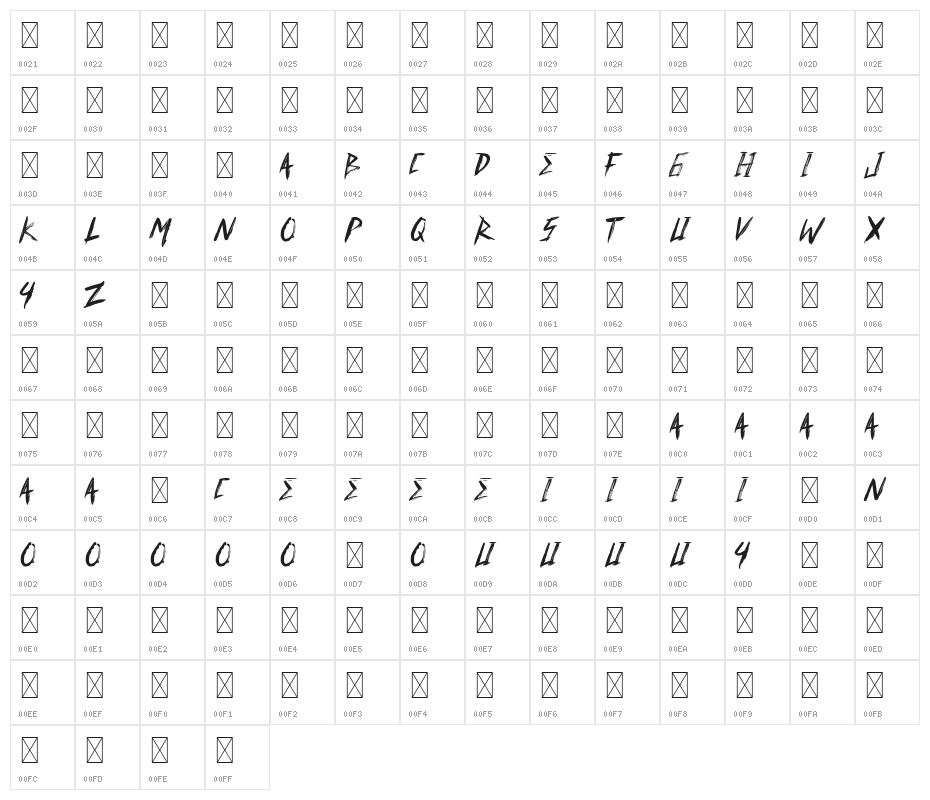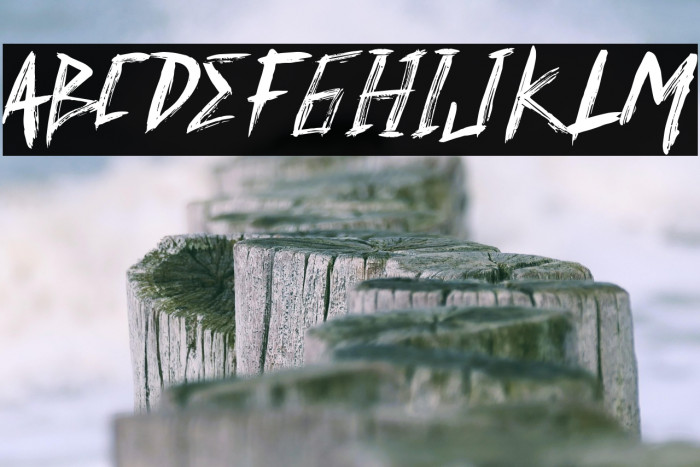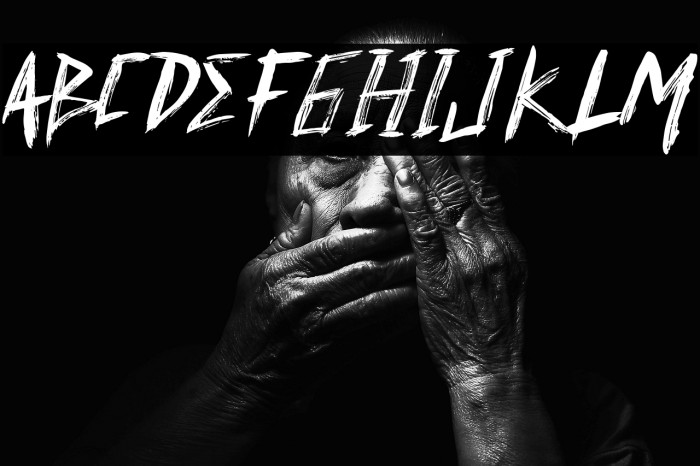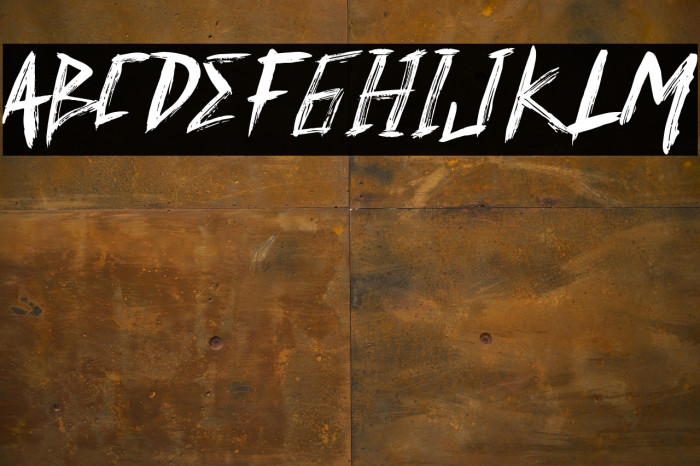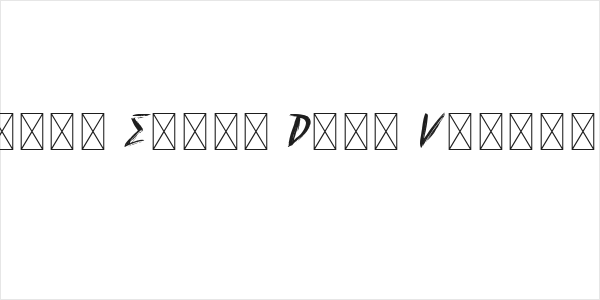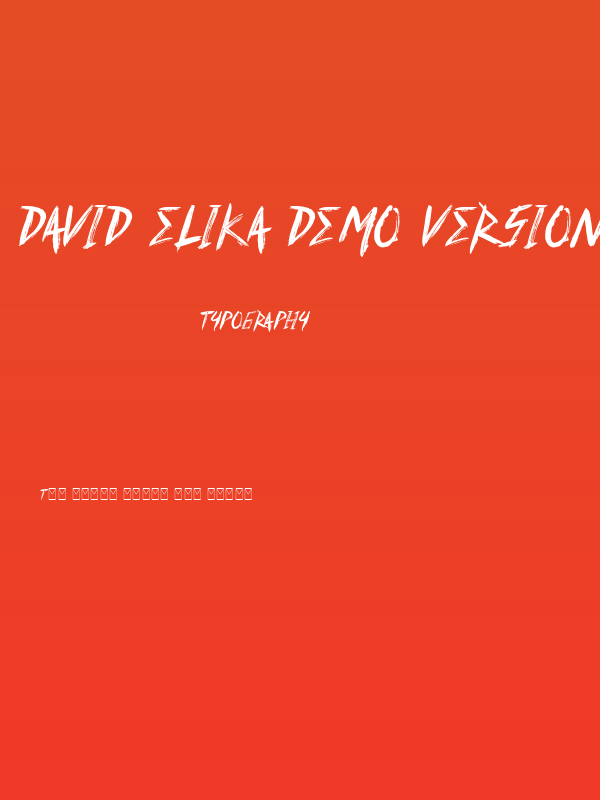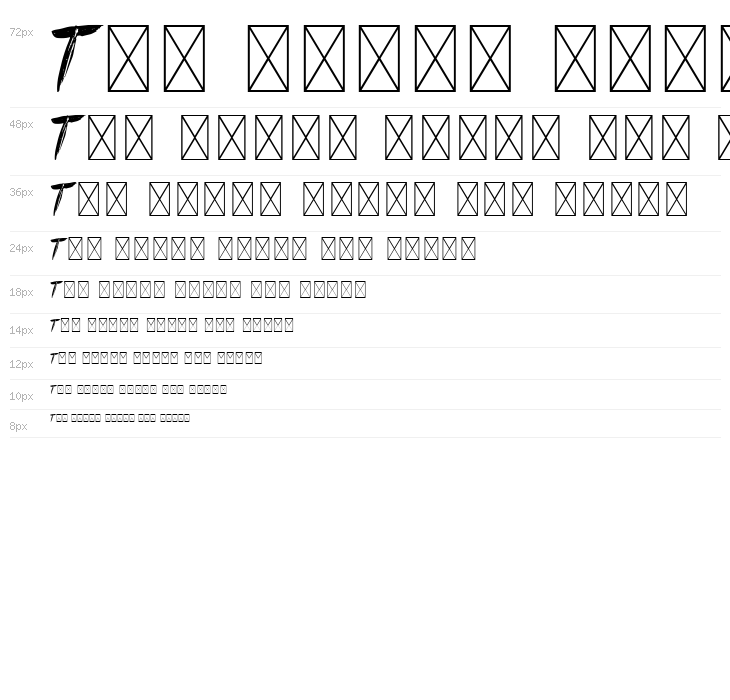
David Elika Demo Version Font
David Elika Demo Version Description
This font features a bold and dynamic brush script style, characterized by its energetic and expressive strokes. The uppercase letters exhibit a sense of motion and fluidity, with varying stroke widths that create a lively and artistic appearance. The design is reminiscent of hand-painted signage, offering a raw and authentic feel. The letters are slightly slanted, enhancing the sense of speed and movement. This font is ideal for projects that require a bold statement, capturing attention with its unique and artistic flair.
| Proposed Projects | Perfect for branding, posters, album covers, and any creative project that requires a bold, artistic touch. |